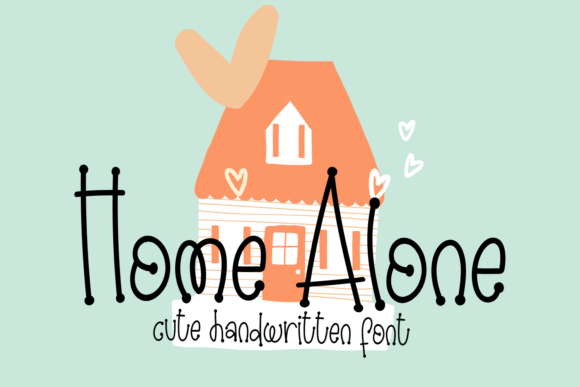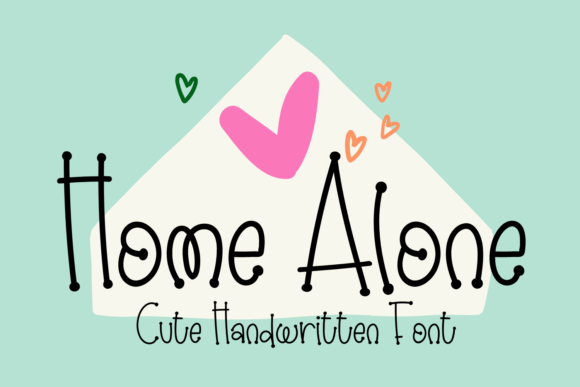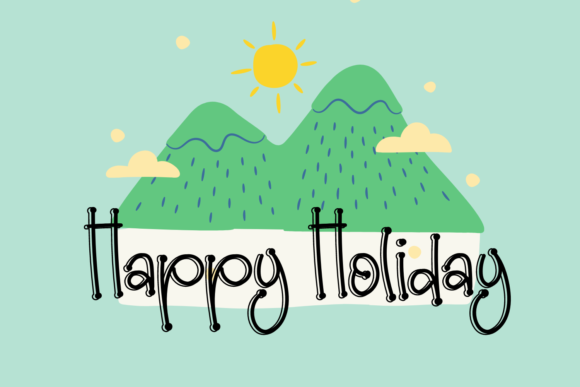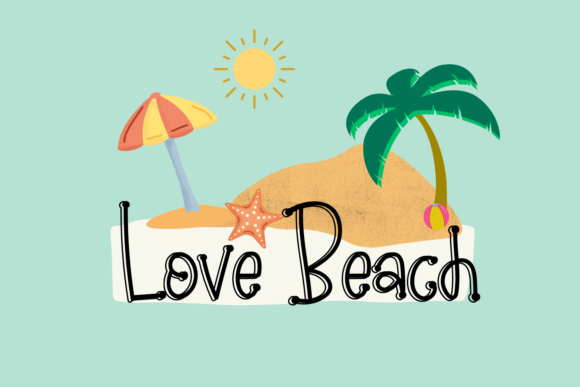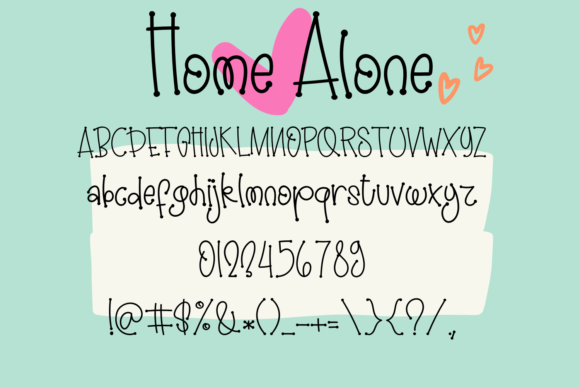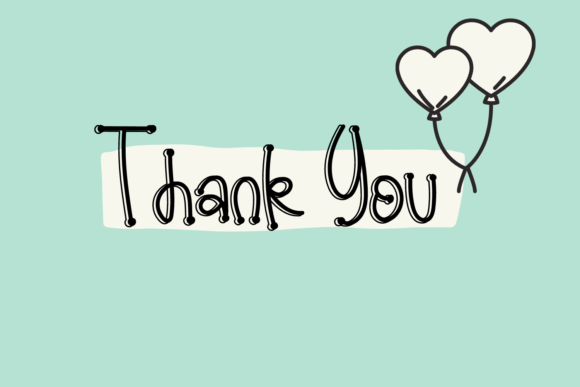
Who hasn’t been there? You’re in the middle of a creative project, staring at a blank canvas or a blank page, and suddenly, the perfect idea strikes. The colors, the typography, the overall vibe – it all comes together in a beautiful, harmonious way. And then, the question: how do I bring this vision to life? This is where the right font can make all the difference, and for many designers, the Home Alone Font is the perfect solution.
This adorable, handwritten font is a breath of fresh air in the world of typography. With its thin, quirky letters, it adds a touch of sweetness and playfulness to any design. Whether you’re creating a children’s book, a wedding invitation, or a social media graphic, the Home Alone Font is sure to bring a smile to your audience’s face.
Home Alone Font Key Features
- Font Family: Home Alone is a custom, handwritten font, not a standard font family.
- Font Size and Resolution: Designed to be used at various font sizes, with optimal readability at sizes 12-24 points, at 300-600 DPI resolution.
- Unique Characteristics: Distinctive, handwritten style with irregular letterforms, giving it a personal, storybook feel.
- Font Style: Comes in Regular and Bold styles, with no Italic or Oblique variations.
- Creator: Designed by Jeffrey Veregge, a renowned lettering artist and illustrator.
Home Alone Font Review
At first glance, the Home Alone Font seems like a charming and playful addition to any design project. ✨ The font’s resemblance to handwritten notes and doodles creates a sense of nostalgia and whimsy that’s perfect for projects centered around family, home, and warmth. The font’s irregularities and imperfections also give it a unique, handcrafted feel that’s hard to replicate with more formal fonts.
One of the biggest strengths of the Home Alone Font is its versatility. ✨ It can be used for titles, headings, and even body text, making it a great choice for a wide range of projects, from greeting cards to social media posts. The font also comes in a variety of weights and styles, allowing designers to experiment with different looks and feels.
- ⚠️ Limited character set: The font’s character set is relatively small, which can make it difficult to use for projects that require a wide range of characters, such as technical writing or complex data visualization.
- ⚠️ Lack of consistency: While the font’s irregularities can be charming, they can also make it difficult to achieve a consistent look across different text elements.
Overall, the Home Alone Font is a fun and playful addition to any design project. While it may have some limitations, its unique charm and versatility make it a great choice for designers looking to add a touch of personality to their work.
Tip: To get the most out of the Home Alone Font, use it for titles and headings to create a nostalgic and playful atmosphere.
Tip: Use the Home Alone Font to create a retro-themed poster or flyer.
Tip: Use the Home Alone Font to create a festive holiday card or invitation.
The Home Alone Font is perfect for:
- Holiday-themed designs and decorations.
- Retro-themed posters and flyers.
- Festive invitations and cards.
- Nostalgic and playful designs.